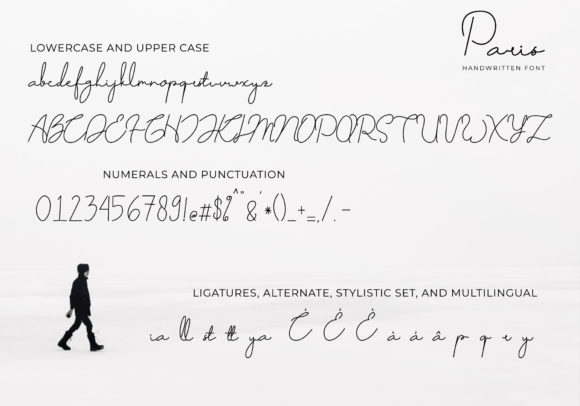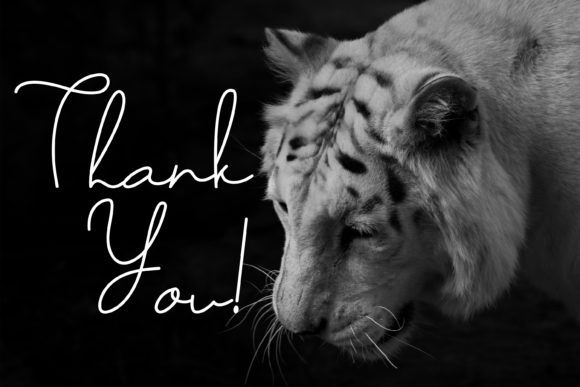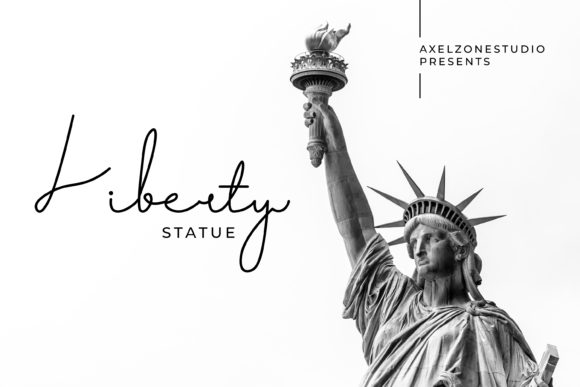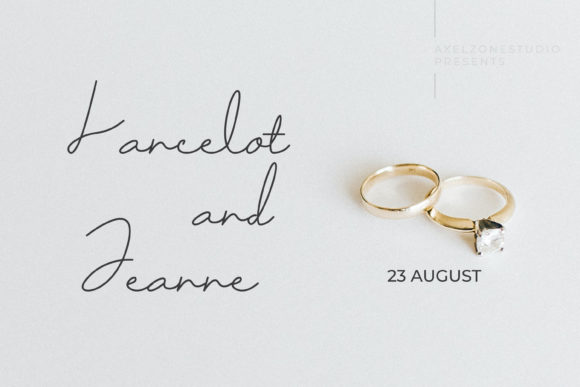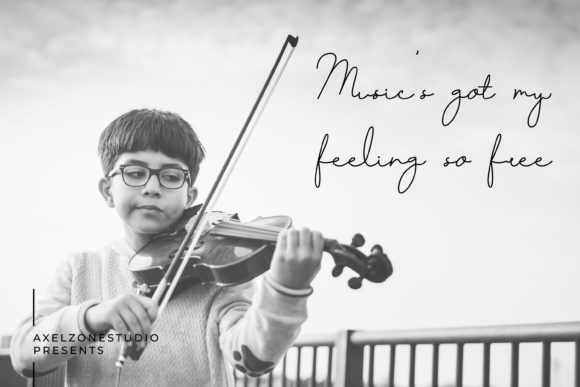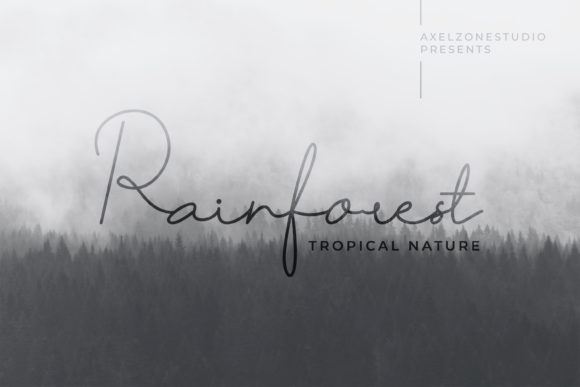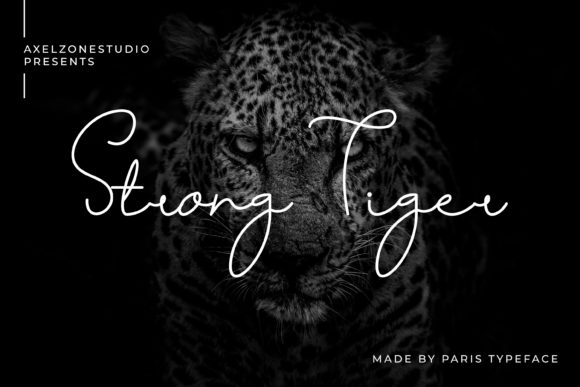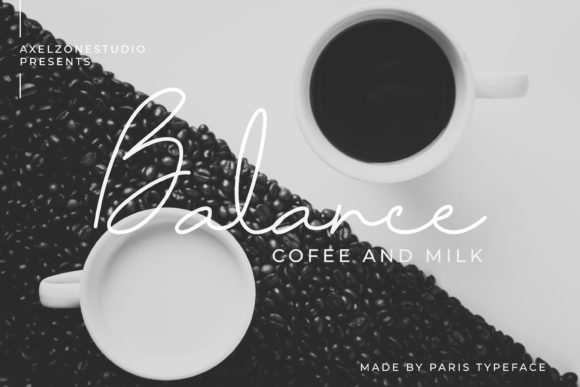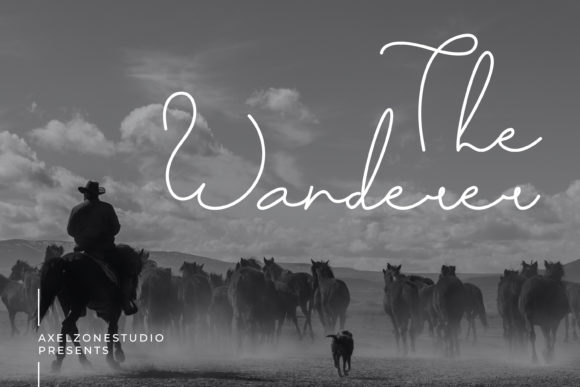
Paris Font
About Paris Font
Paris is a flowing and relaxing handwritten font. Fall in love with its incredibly versatile style and use it to create gorgeous wedding invitations, beautiful stationary art, eye-catching social media posts, signature, branding, and much more!